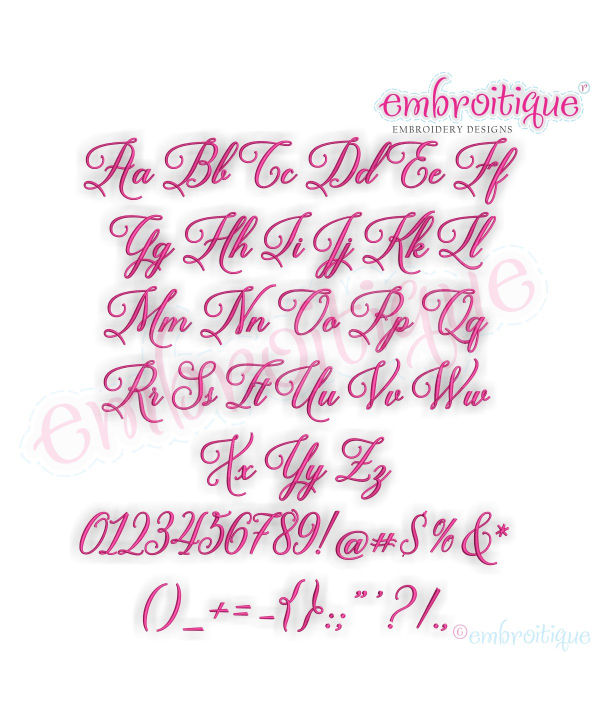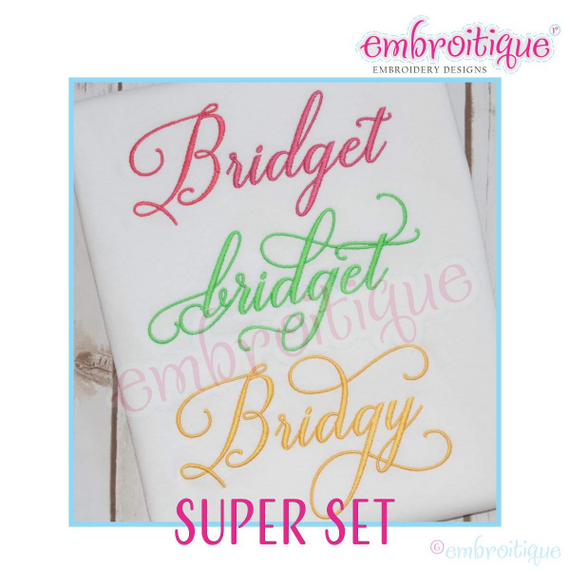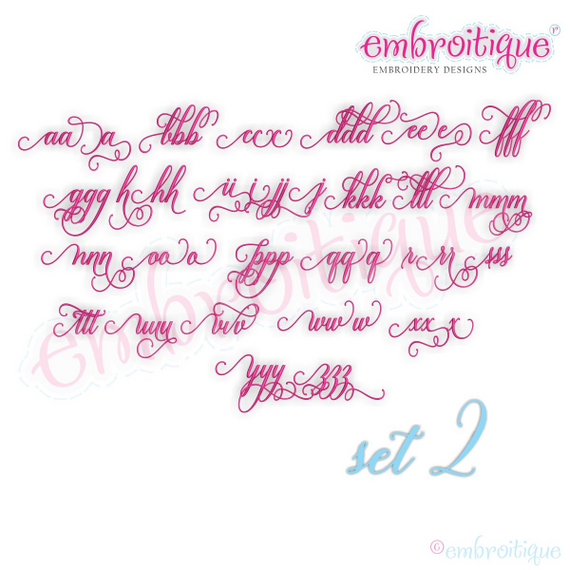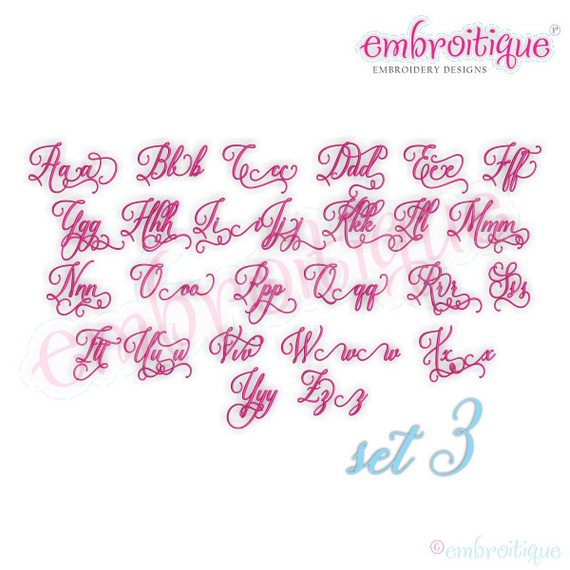
Bridget Super Set (sets 1, 2 & 3) - Small - Beautiful Calligraphy Swash Interchangeable Machine Embroidery Alphabet font - BX files included
Includes all the letters, punctuation, numbers and alternate characters from Bridget Set 1, Set 2, and Set 3.